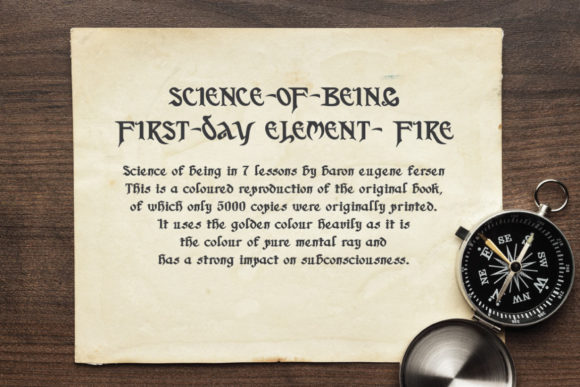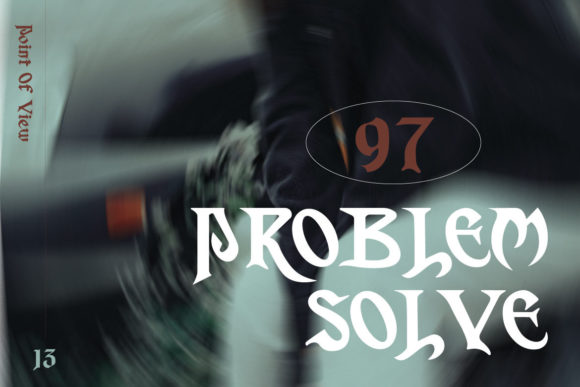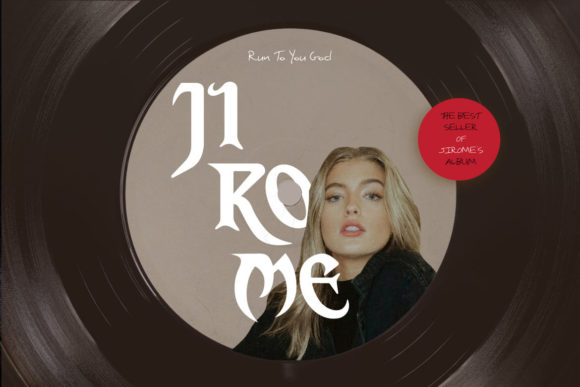
Introduction to Moendera Font
Have you ever found yourself scrolling through design inspiration boards, and suddenly, a single font catches your eye? For designers, this moment is pure magic. The perfect font can elevate a project from good to great, and Moendera Font is one such treasure. With its gothic and blackletter style, this font is a game-changer for any creative project you can think of.
From logos to T-shirts, and even website headers, Moendera Font adds a touch of sophistication and elegance that’s hard to replicate. Its versatility makes it a valuable design resource for any project, whether you’re working on a high-end brand identity or a simple flyer. And the best part? You can download Moendera Font for free, making it an accessible high-quality design element for designers of all levels.
Whether you’re a seasoned pro or just starting out, Moendera Font is a must-have addition to your design arsenal. With its transparent background and sleek design, it’s the perfect element to add a touch of drama to your creative project.
Key Features of Moendera Font
- High-quality design resource ideal for creative projects, offering a unique and modern aesthetic.
- Transparent background, making it easy to use in various design contexts and allowing for a high degree of customization.
- Comes in a range of sizes, from 12pt to 72pt, to suit various design needs and requirements.
- Designed at a high resolution of 300 DPI, ensuring crisp and clear text output in both digital and print formats.
- Perfect for use in logo design, branding, and other creative projects where a modern and unique font is required.
Honest Review: Moendera Font
I recently stumbled upon the Moendera Font, and I must say, it’s a great addition to any designer’s toolkit. As a design resource, it offers a high-quality solution for creating visually appealing typography in various creative projects.
What works well is the wide range of styles and weights available in the Moendera Font. It’s perfect for designers who want to add a touch of elegance and sophistication to their designs. The font is also free to download, making it an excellent choice for those on a budget.
- ✨ High-quality typography
- ✨ Wide range of styles and weights
- ✨ Suitable for creative projects
However, there are a few limitations to consider. The font doesn’t come with a transparent background option, which might be a drawback for designers who need to create designs with a transparent or semi-transparent background.
Overall, I’d say the Moendera Font is a solid choice for designers who are looking for a high-quality, free font to use in their creative projects. While it may not offer some advanced features, it’s a great starting point for any design project.
- ⚠️ No transparent background option
Tips for Getting the Most Out of Moendera Font
To get the most out of the Moendera Font, use it with a transparent background to create a clean and modern design. You can also experiment with different font sizes and styles to add visual interest to your project.
The Moendera Font is a high-quality design resource that can be used in a variety of creative projects, including:
- Business card design
- Brochure design
- Infographic design
Yes, the Moendera Font is designed to be used on a transparent background. The font’s design is optimized to work seamlessly with transparent backgrounds, ensuring that your creative project looks professional and polished.